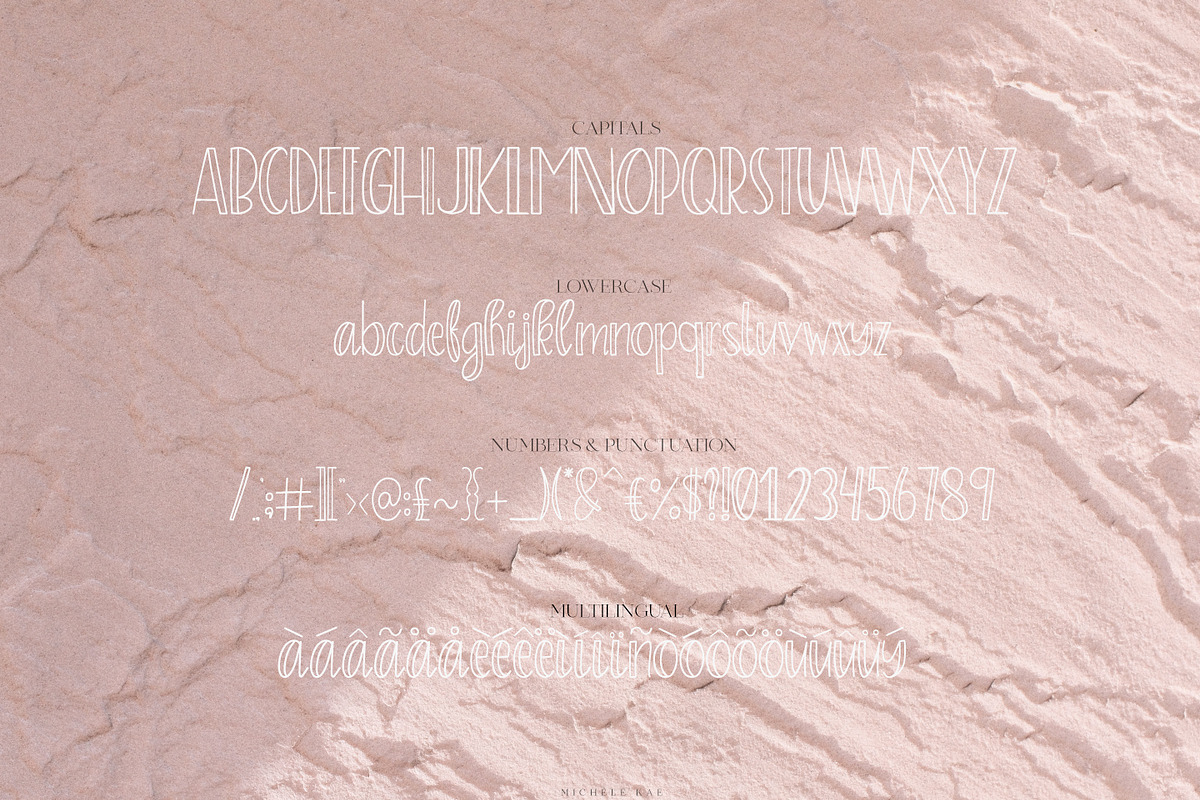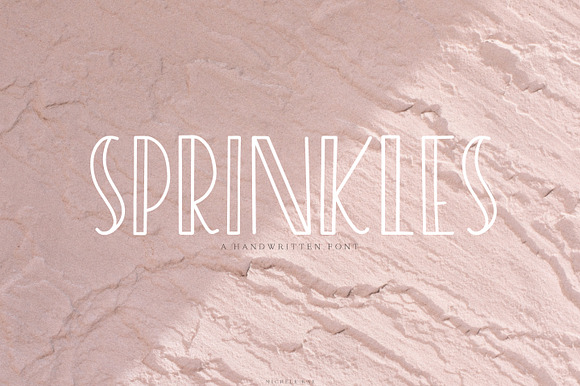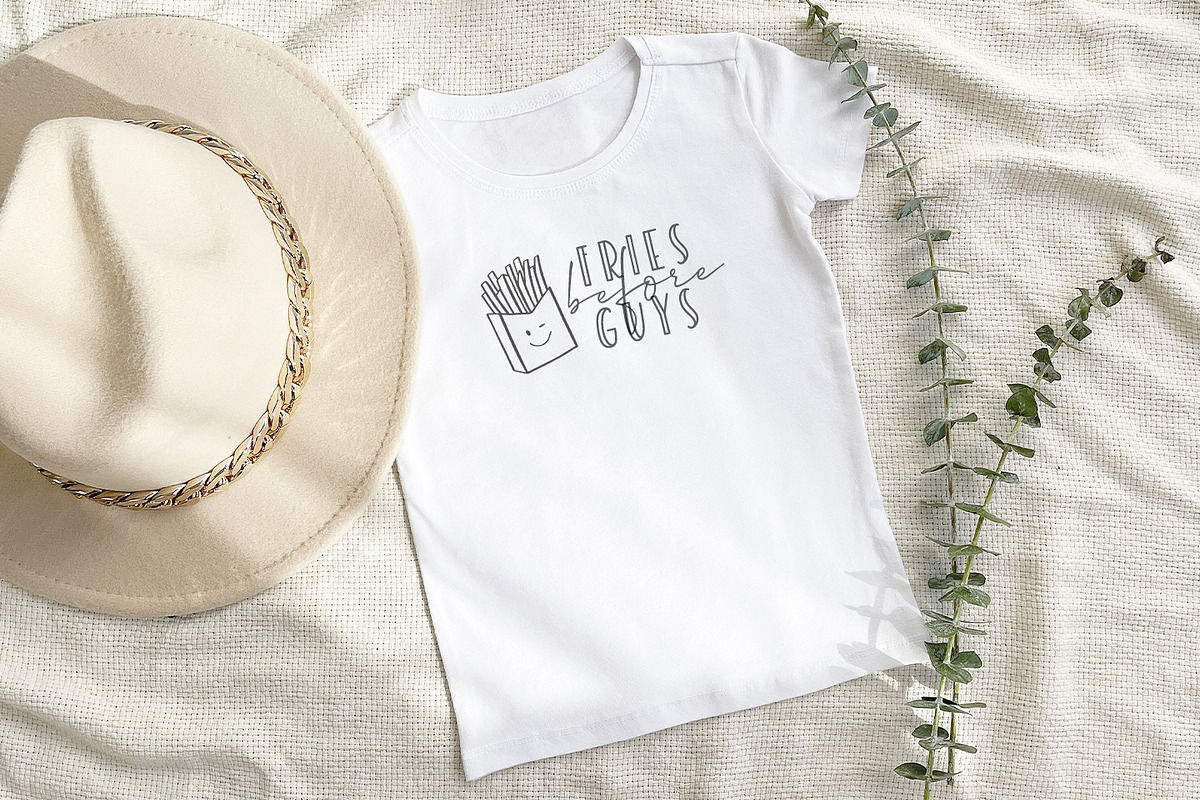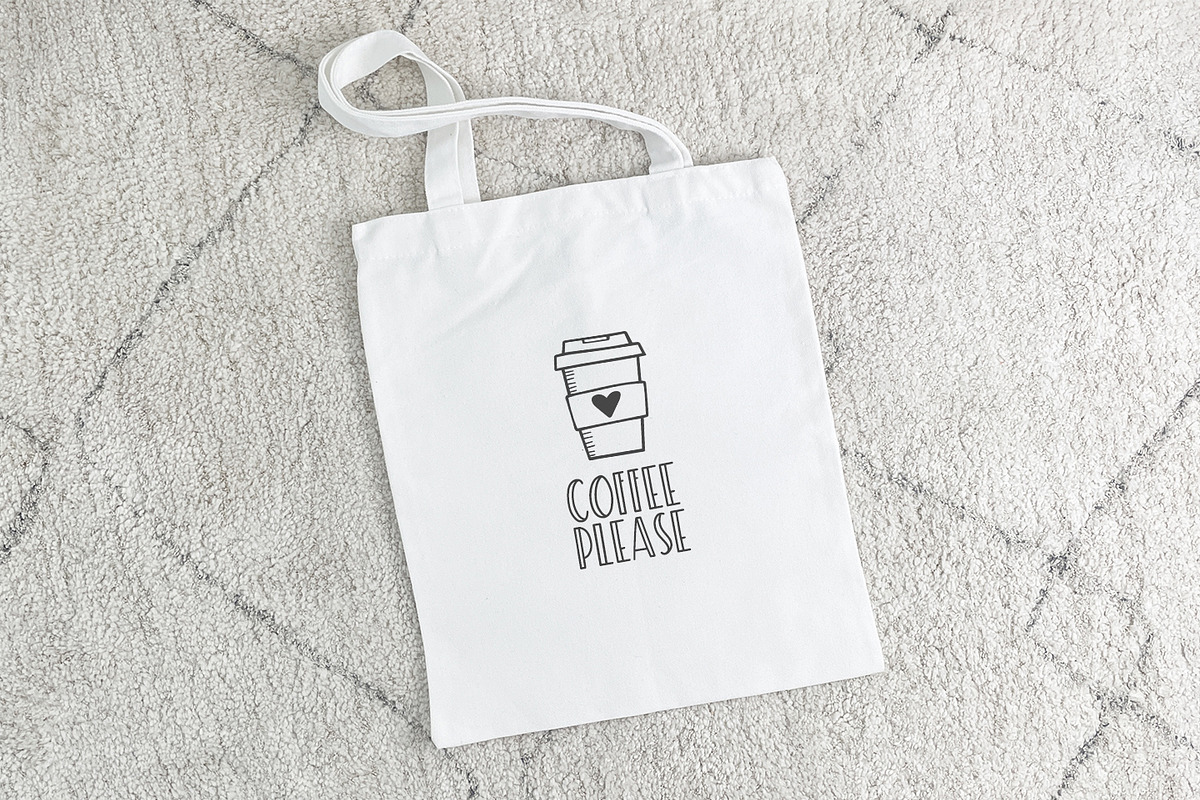
Sprinkles | A Sweet Playful Font
Say hello to 'Sprinkles'. A sweet and playful handwritten font. Perfect for Branding, Menu cards, Logo's, Posters, Packaging, Invites, Flyers, Prints, Quotes, SVGs and so much more!